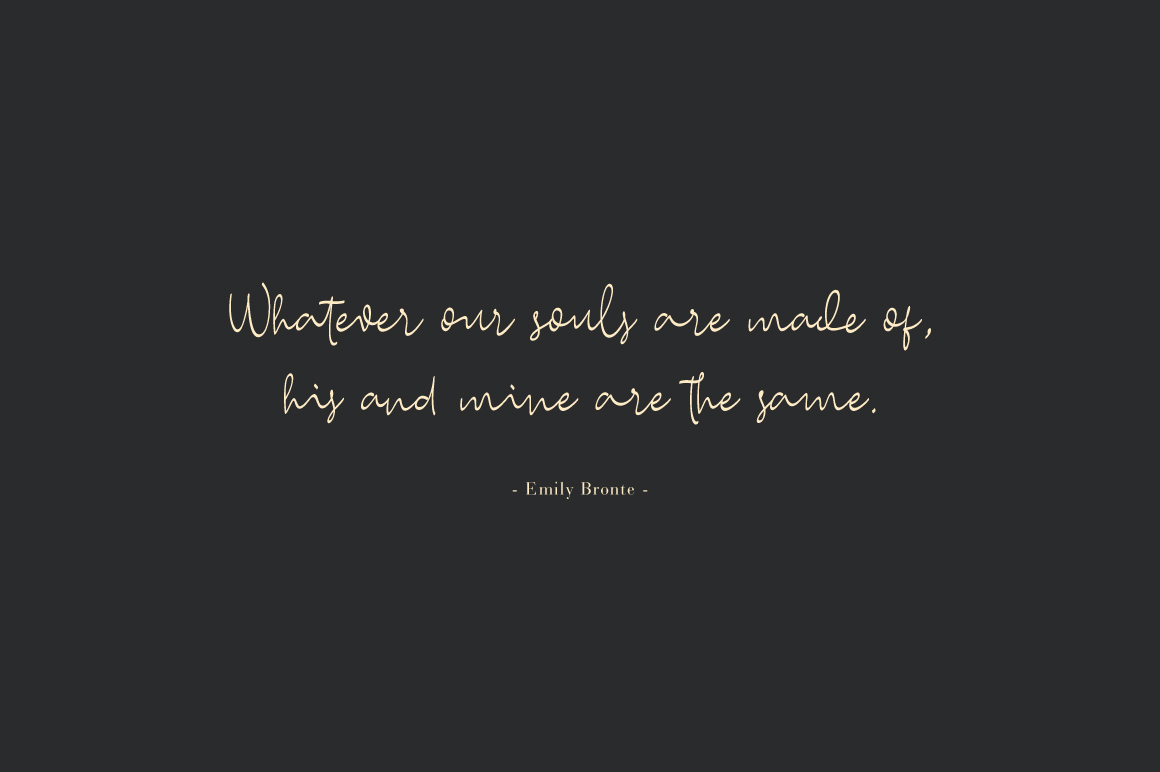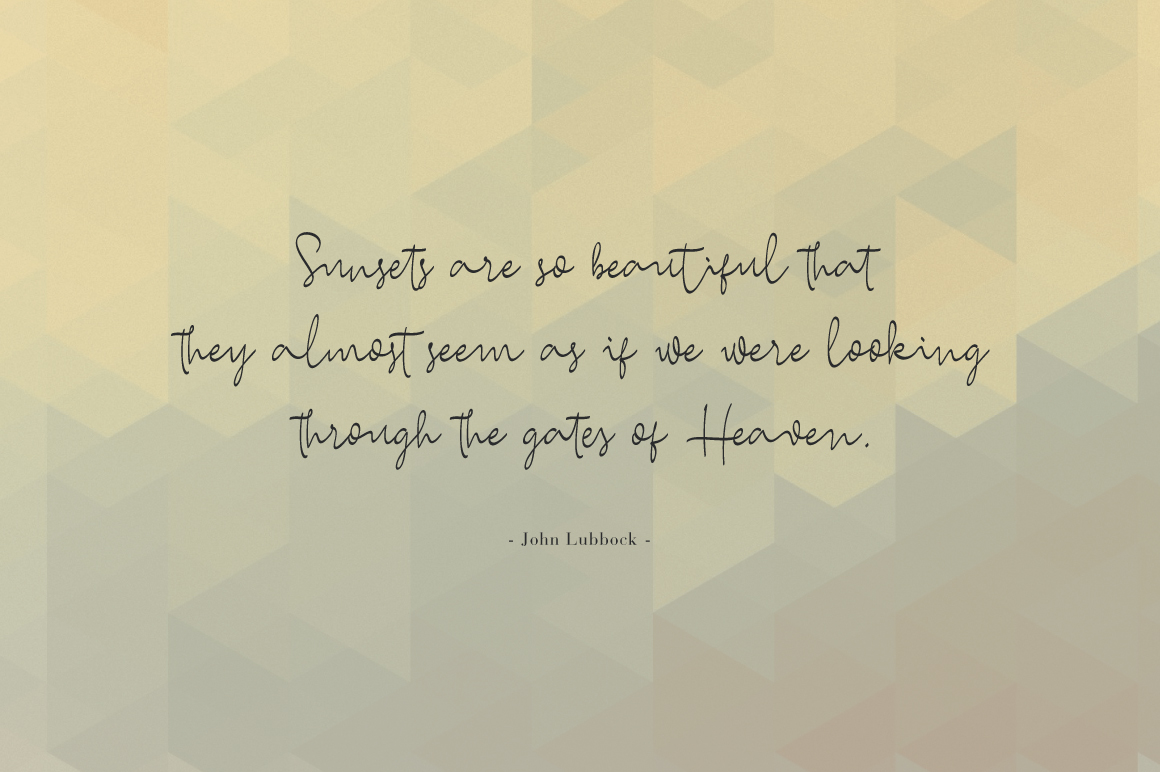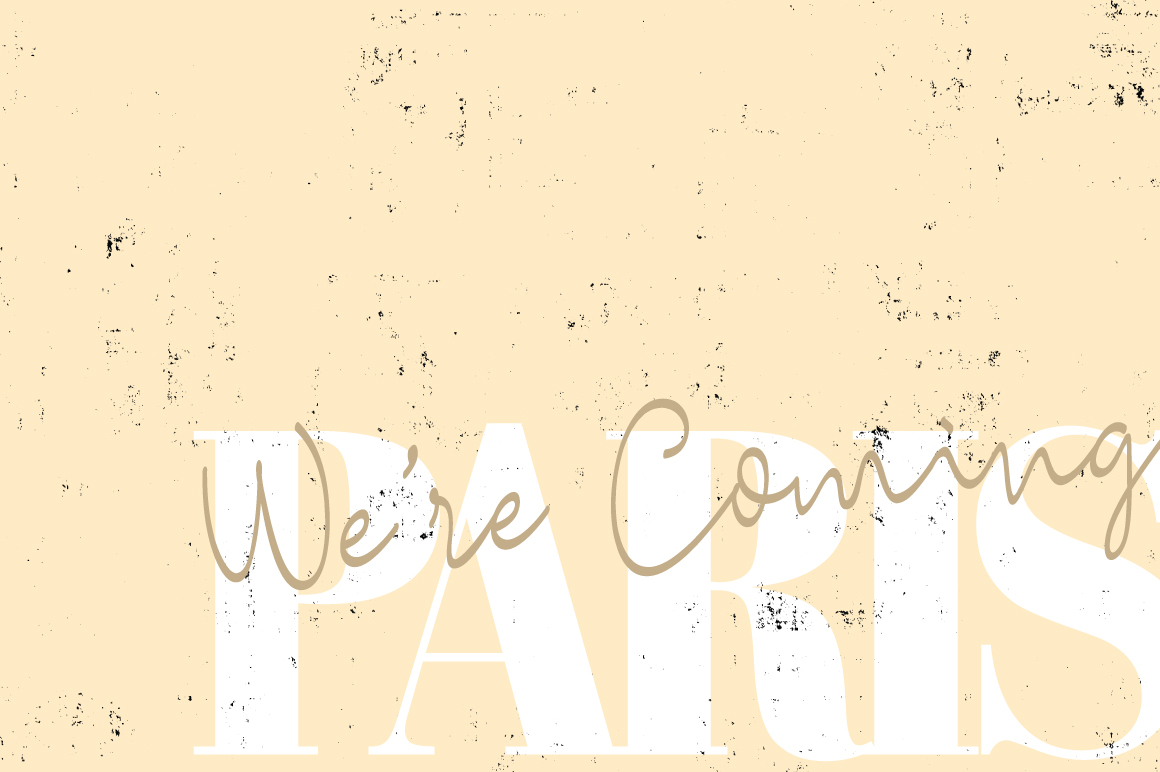
Free Conditional Script Font
Hi subscriber....!! it's time to free font. Happy to you all, a stylish, fresh new handwritten script, welcome to Conditional Script font. Conditional Script was created to look as close to a natural handwritten script. Thanks to IjemRockart who was willing to give back his best work. Feel free to use it, please ask the designer for more details.